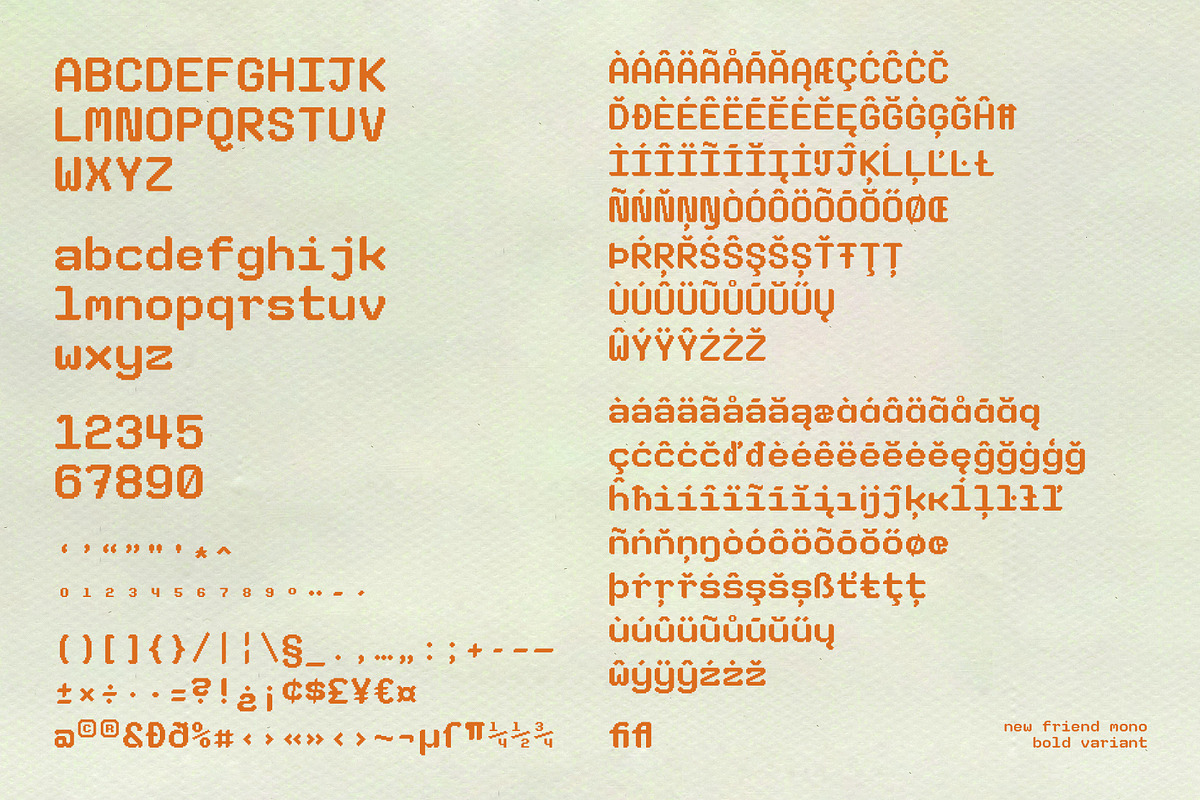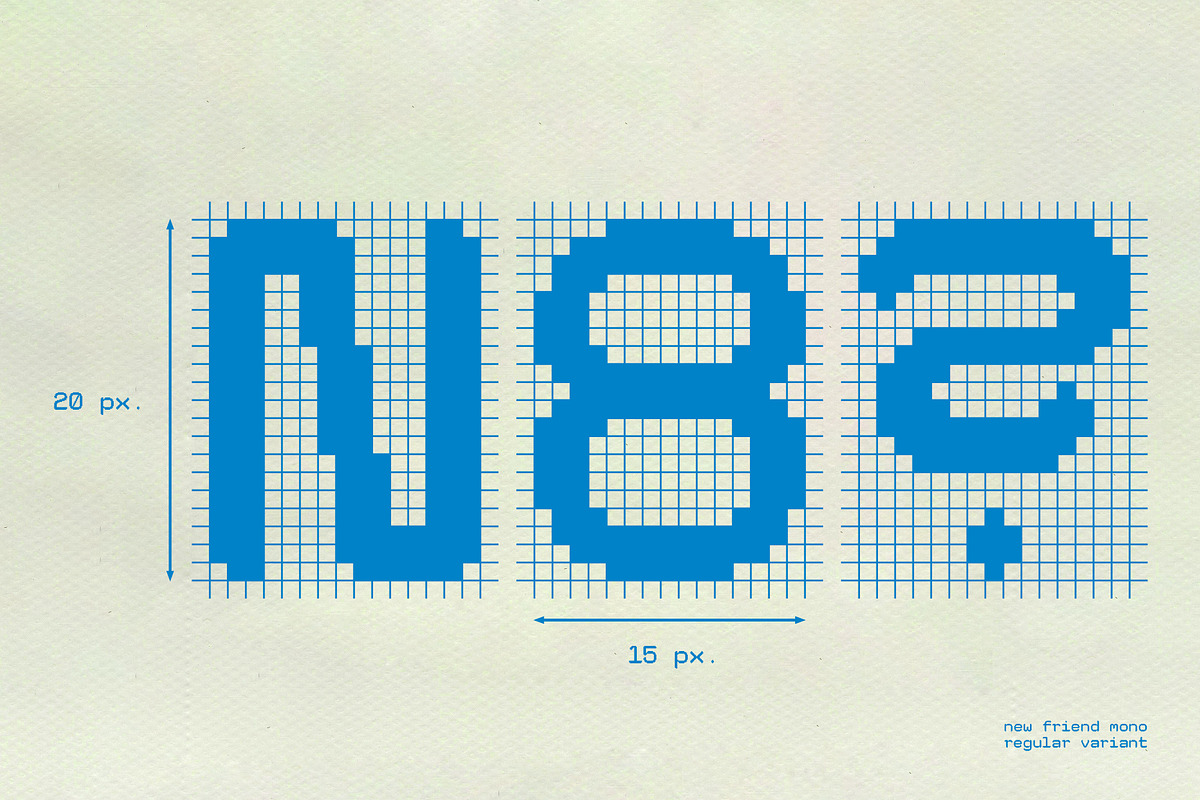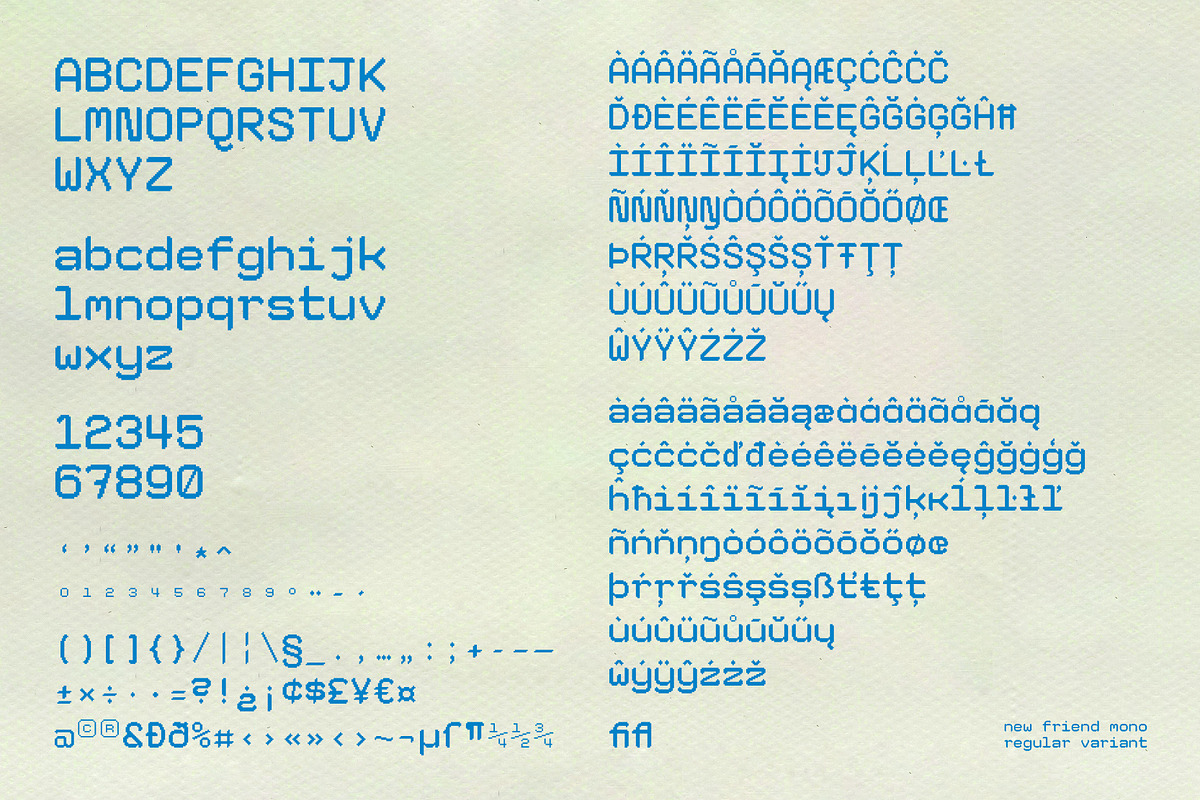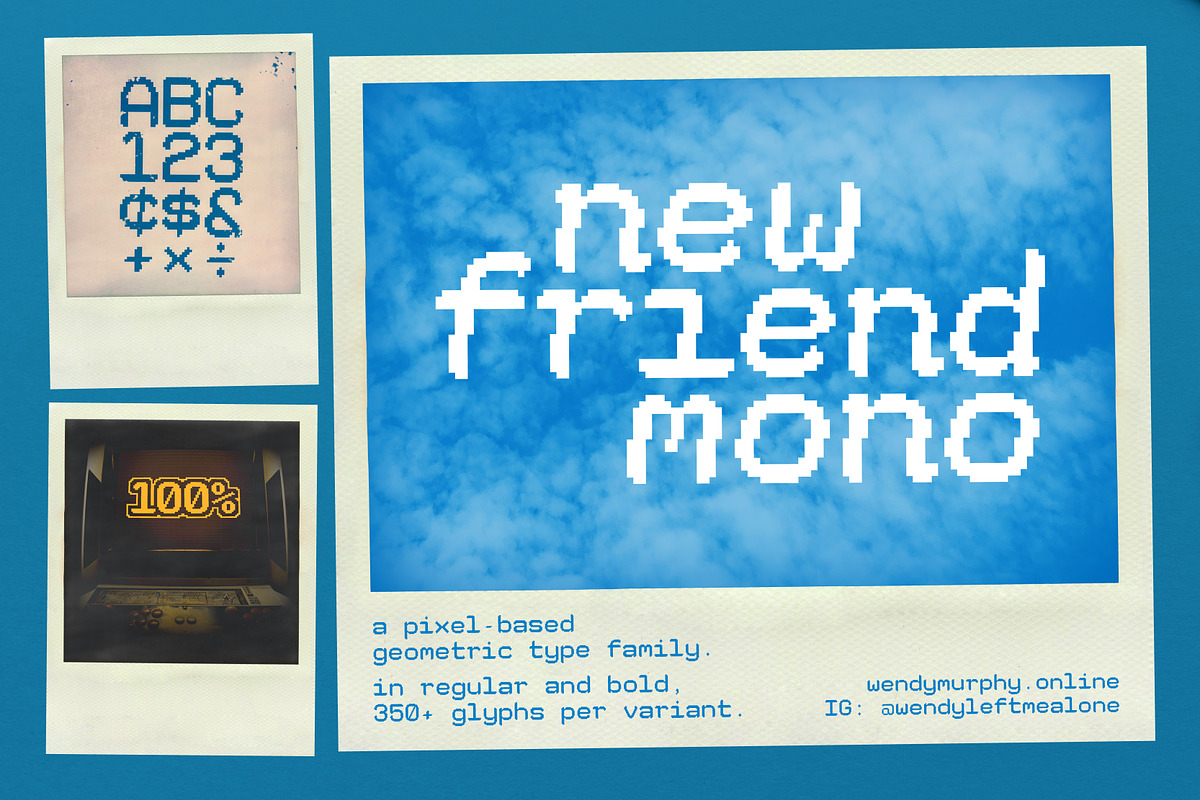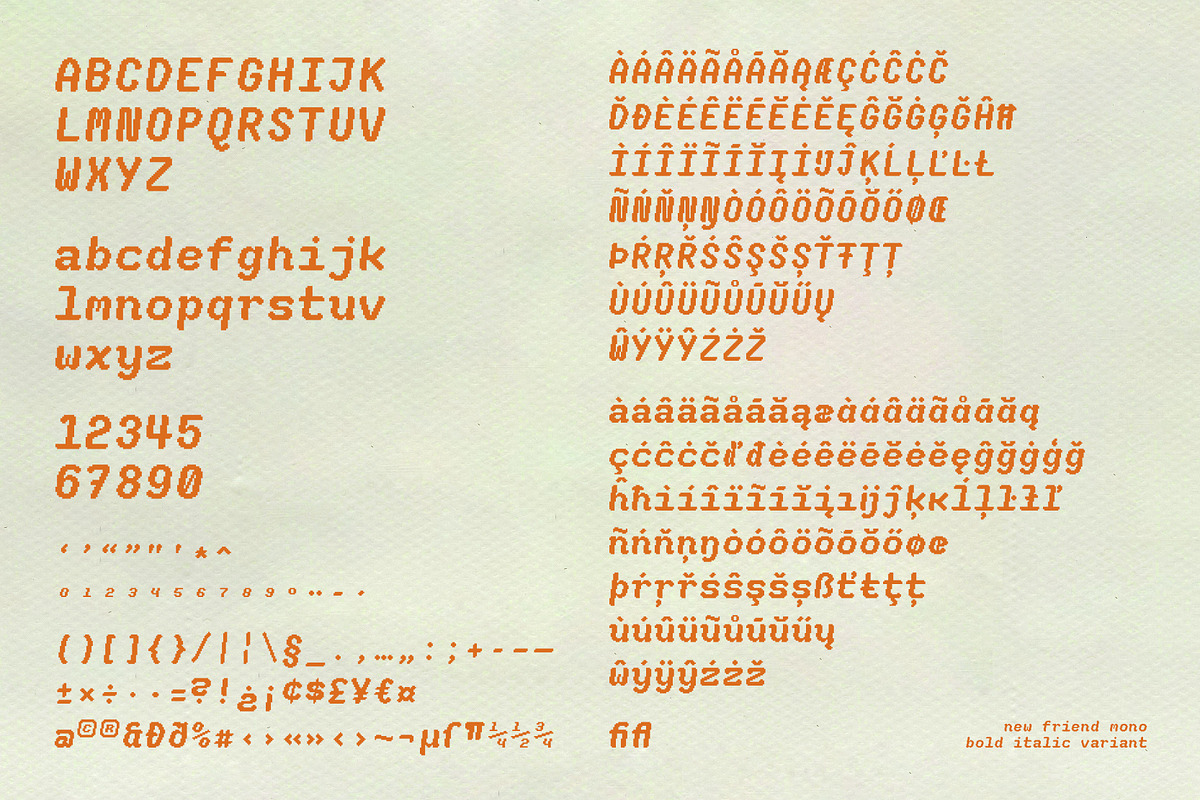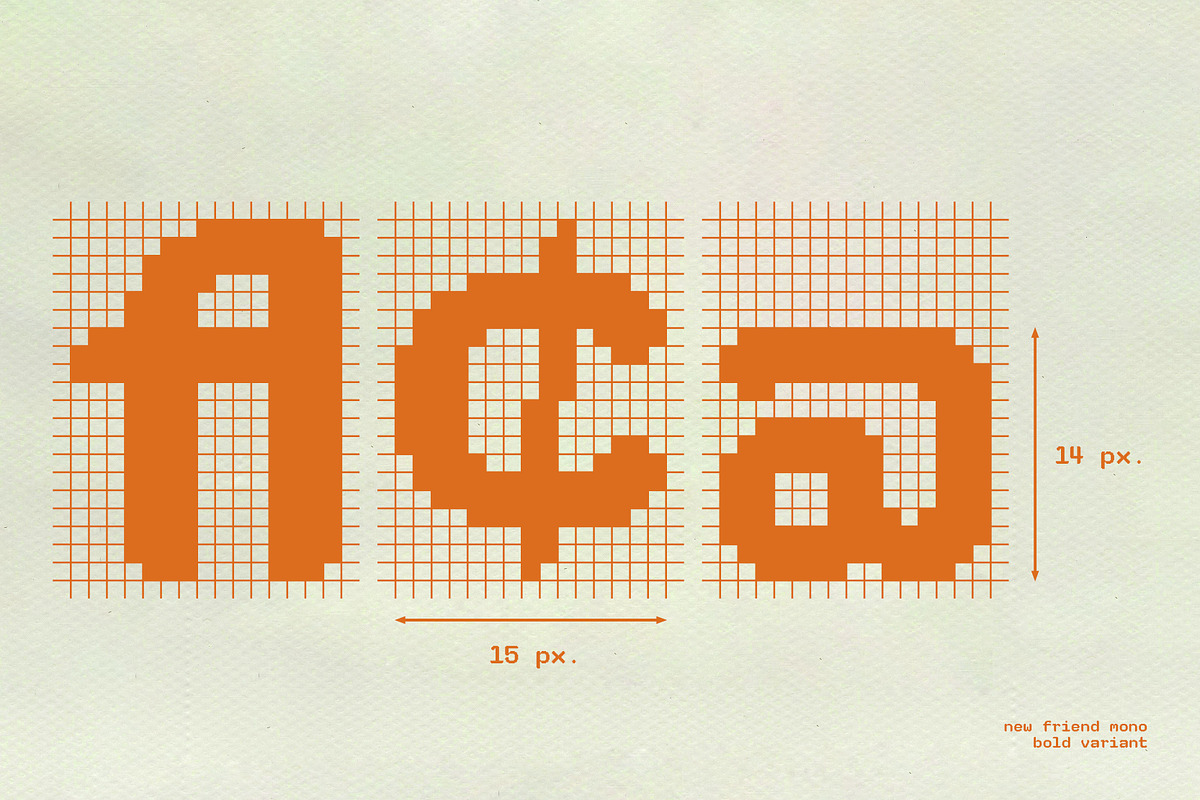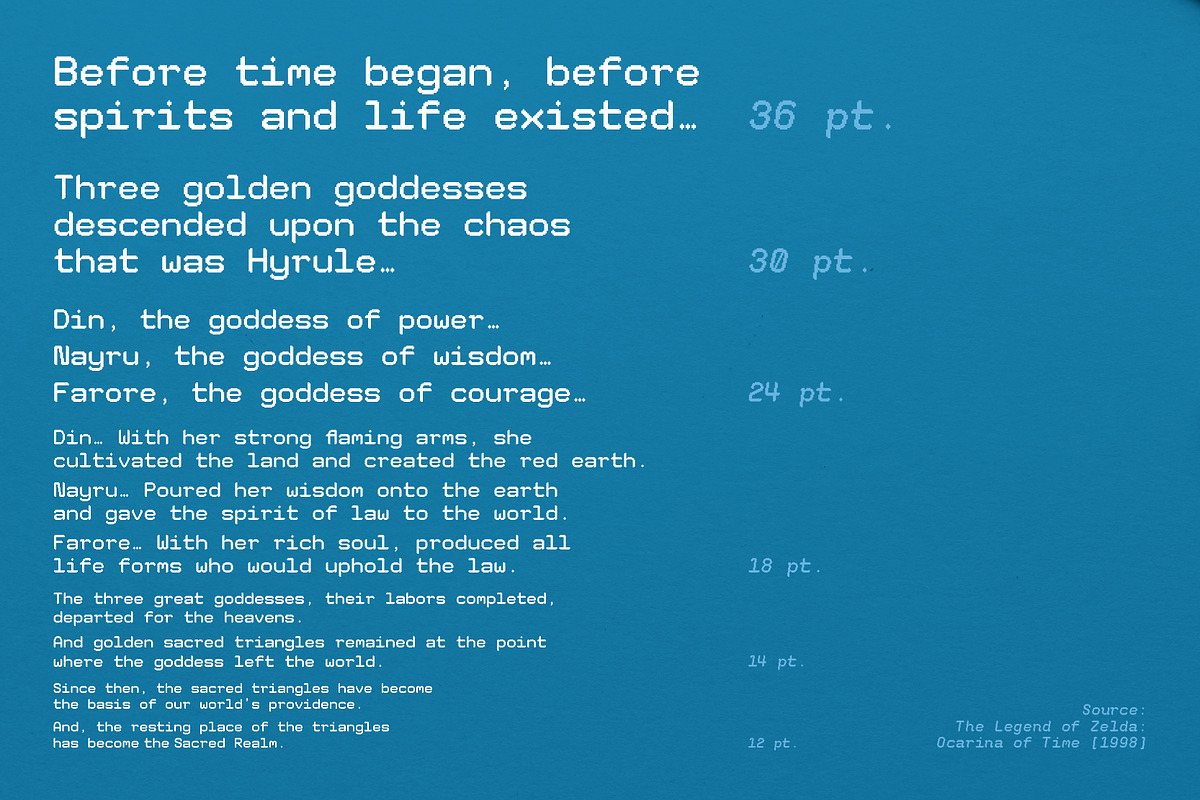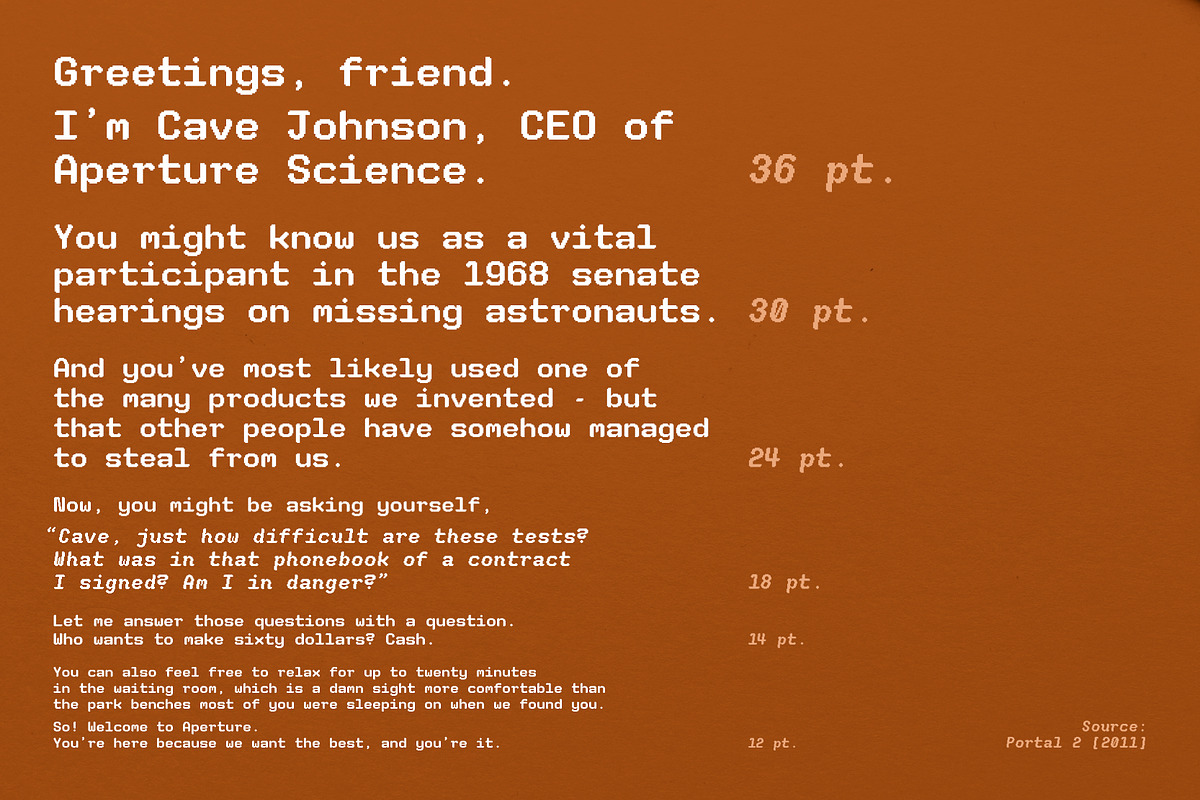
New Friend Mono | Pixel Sans-Serif
Teaching a new dog old tricks! This monospaced sans-serif typeface was created primarily using a 15 pixel by 20 pixel grid, and taking direct inspiration from retro gaming. While pixel type is more often associated with rigidity to bring an overtly retro feel, New Friend Mono takes inspiration from role-playing games that represent modern settings such as Pokémon, Paper Mario, and Earthbound; as while they are text-heavy and must maintain legibility, they are able to still complement softer environments.
The typeface contains 4 variants (Regular, Italic, Bold, and Bold Italic), and includes approx. 353 glyphs per variant (as of March 2025), including:
- Uppercase letters
- Lowercase letters
- Accent Marks (Uppercase and Lowercase)